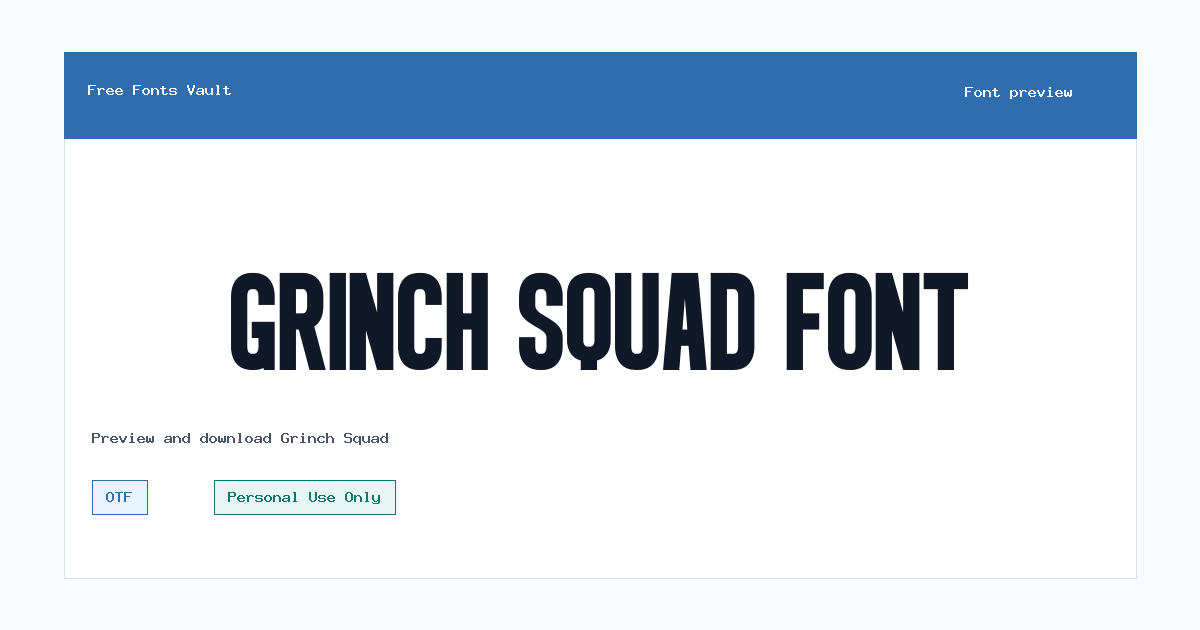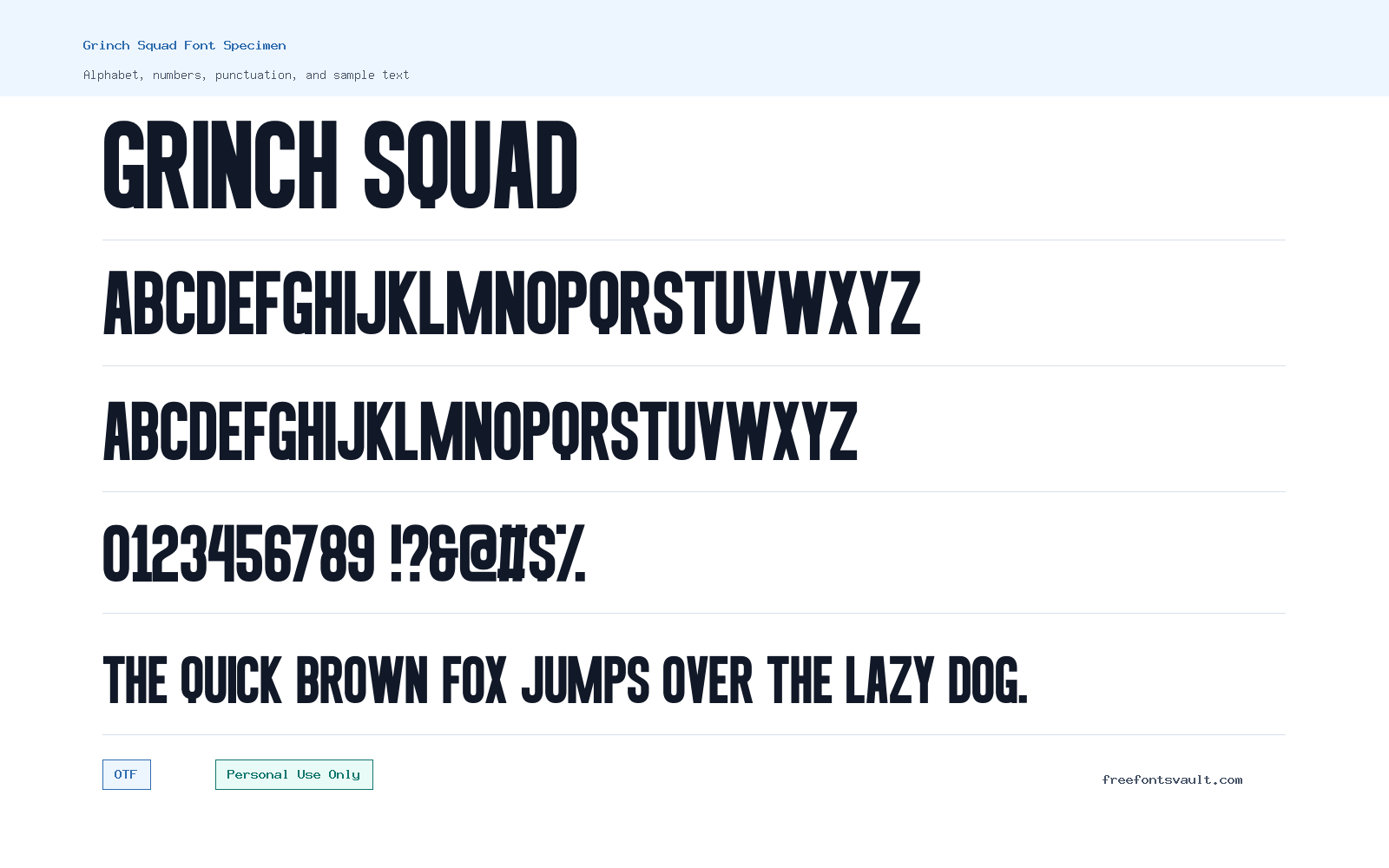
Grinch Squad
- Designer Muhammad Rizki Utomo
Grinch Squad is a display-style font with a playful, eye-catching personality, made for short text that needs more character than a plain sans serif. It is best treated as a headline or decorative font rather than a long-reading typeface.
About Grinch Squad Font
Grinch Squad works well when you want a bold visual voice for a title, poster line, social graphic, thumbnail, sticker-style layout, or themed design. The family name suggests a fun, mischievous mood, so it is a good candidate for testing in playful headings, seasonal artwork, party graphics, craft projects, and other designs where the words can be large and easy to notice. Since the downloadable font file is an OTF file with a regular style and normal 400 weight, it should be simple to try in common design apps that support OpenType fonts.
- Playful display character that works best in short, high-impact text
- Posters, thumbnails, stickers, party graphics, and themed headings
- Short titles, names, craft designs, and social media artwork
What kind of projects fit Grinch Squad best?
It is best for short display text such as titles, poster wording, social graphics, labels, stickers, and themed artwork where a playful font style is useful.
Can I use Grinch Squad for paragraphs?
It is not the best choice for long text. Use it for headings or short phrases, then pair it with a simpler font for paragraphs and smaller details.
Who designed Grinch Squad?
The designer is listed as Muhammad Rizki Utomo.